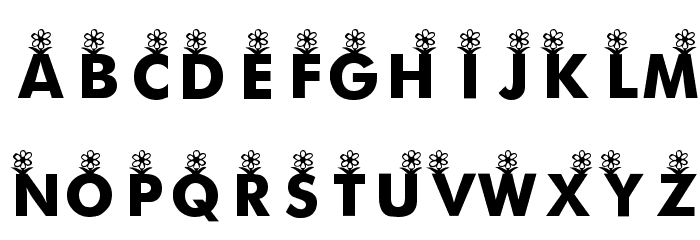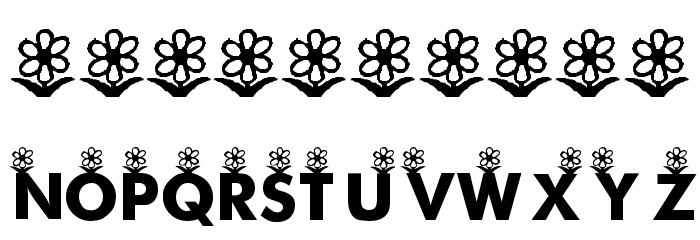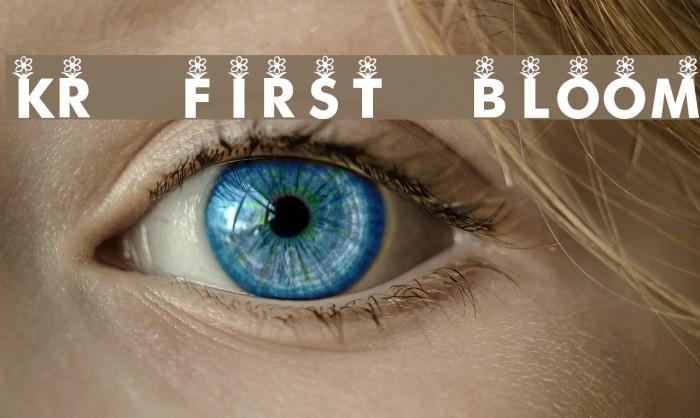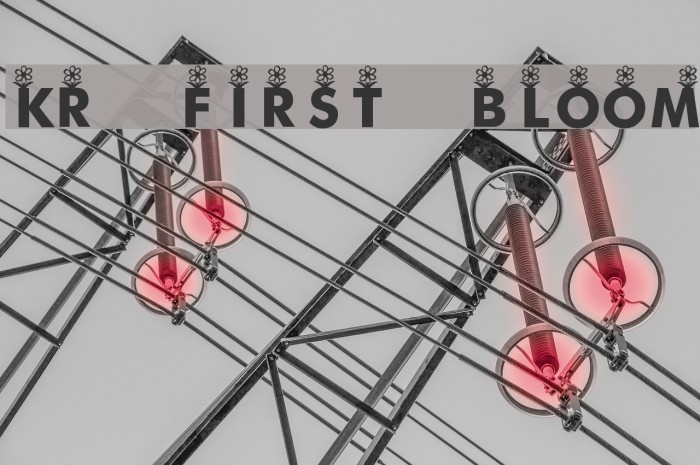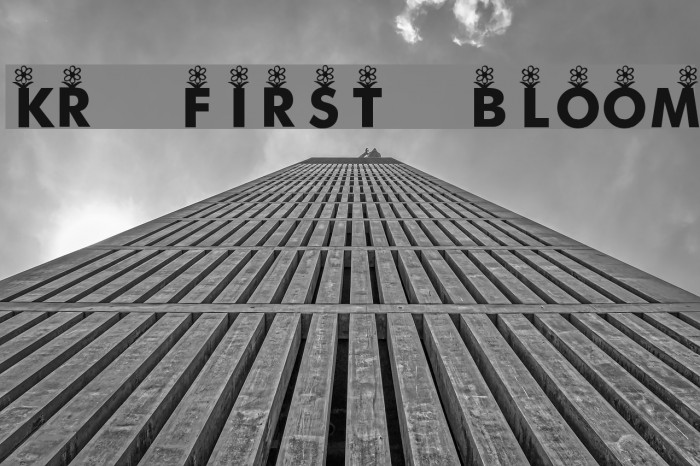
KR First Bloom Font
This decorative font features bold, uppercase letters adorned with charming floral accents above each character. The flowers add a whimsical and playful touch, making it ideal for projects that require a fun and lively aesthetic. The letters are evenly spaced and maintain a consistent width, ensuring readability despite the decorative elements. The font's bold weight and high contrast between the thick strokes of the letters and the delicate floral designs create a striking visual impact.
A bold, decorative font with floral accents above each letter.
- Proposed Projects: Ideal for greeting cards, children's book covers, spring-themed event invitations, and playful branding projects.